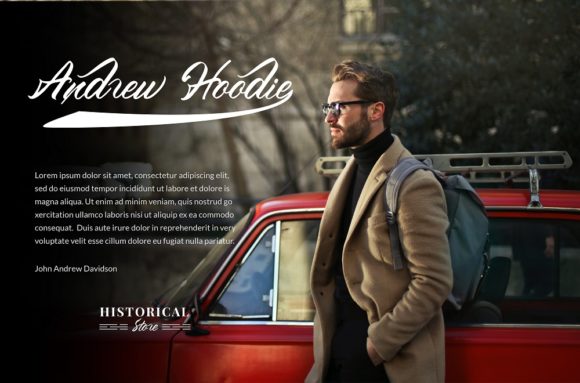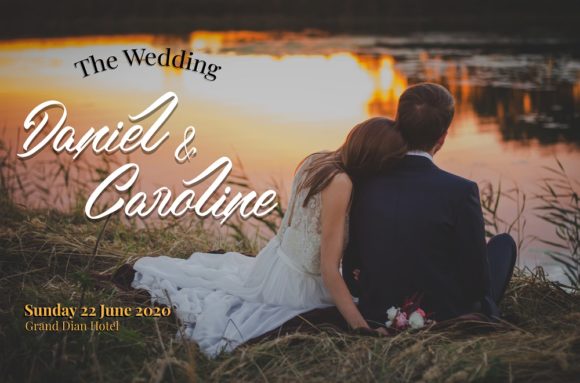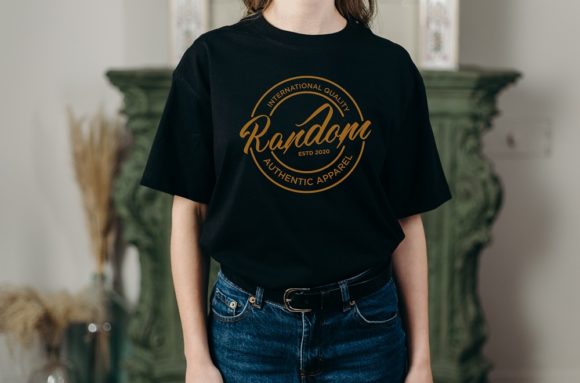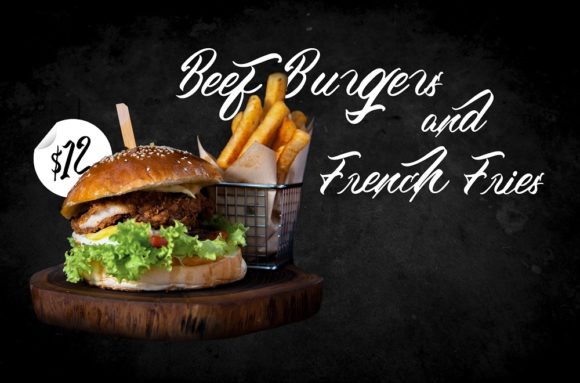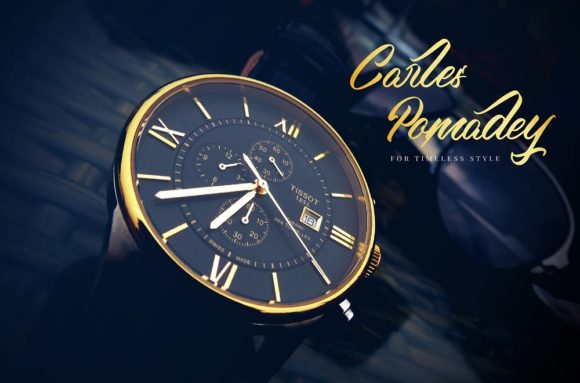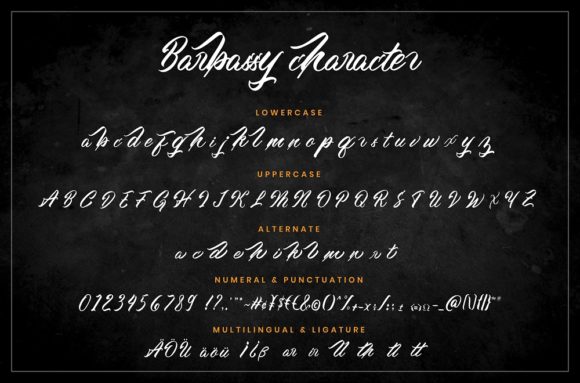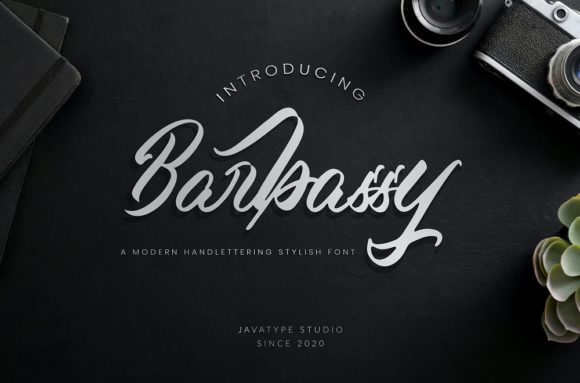
Introducing Barbassy Font: The Ultimate Handwritten Elegance
Are you a designer or crafter looking for a unique and timeless font to elevate your creative projects? Look no further than Barbassy Font, an incredibly distinct, delicate, and elegant handwritten font that is sure to leave a lasting impression.
What Makes Barbassy Font So Special?
Barbassy Font is a one-of-a-kind handwritten font that exudes sophistication and refinement. Its delicate strokes and intricate details make it perfect for a wide range of design applications, from wedding invitations and thank you cards to quotes, greeting cards, logos, and business cards.
Whether you’re a seasoned designer or a crafty DIY enthusiast, Barbassy Font is sure to become your go-to choice for adding a touch of elegance and whimsy to your creations.
The Perfect Font for Wedding and Event Design
Wedding planners, event designers, and stationery enthusiasts will love Barbassy Font for its romantic and vintage charm. Imagine adding a personal touch to your wedding invitations, save-the-date cards, or thank you notes with this beautiful handwritten font.
Barbassy Font is also perfect for creating stunning event branding, including logos, menus, and programs. Its unique and eye-catching design will set your event apart from the rest and leave a lasting impression on your guests.
Barbassy Font is incredibly versatile and can be used for a wide range of design projects, including:
• Thank you cards and gift tags
• Quotes and typography art
• Greeting cards and postcards
• Logos and branding
• Business cards and letterheads
• DIY crafts and scrapbooking
Why Choose Barbassy Font?
So, why choose Barbassy Font over other handwritten fonts? Here are just a few reasons:
• Unique and distinctive design: Barbassy Font has a one-of-a-kind design that will set your creations apart from the rest.
• Delicate and elegant: This font is perfect for adding a touch of sophistication and refinement to your designs.
• Timeless and versatile: Barbassy Font is a classic design that will never go out of style, making it perfect for a wide range of design applications.
Tips for Using Barbassy Font
To get the most out of Barbassy Font, here are a few design tips to keep in mind:
• Pair with contrasting fonts: Pair Barbassy Font with a bold, modern font to create a striking contrast.
• Use for headlines and titles: This font is perfect for headlines and titles, where you want to make a bold statement.
• Add a personal touch: Use Barbassy Font to add a personal touch to your designs, such as handwritten notes or quotes.
In conclusion, Barbassy Font is an incredible handwritten font that is sure to elevate your design projects to the next level. Its unique and delicate design makes it perfect for a wide range of applications, from wedding invitations and event design to logos and business cards.